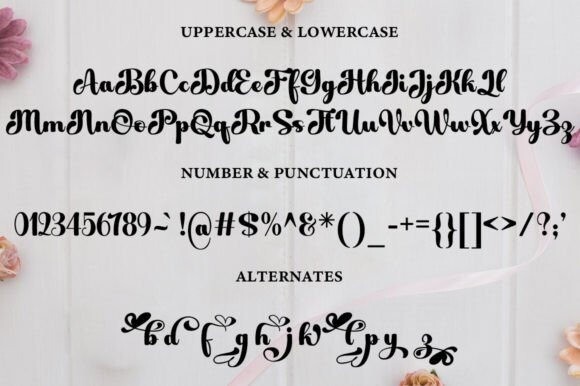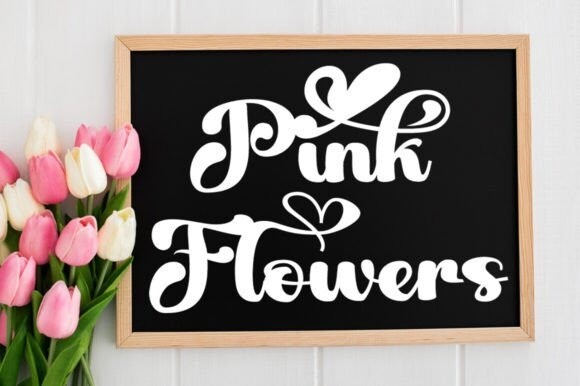
Fayla Font
Fayla Font is a cute, versatile, and flexible handwritten font. Warm, romantic, and jovial, this font will turn any of your project ideas into real works of art. This font is PUA coded which means you can access all the glyphs and swashes easily, this font is complete with language support!